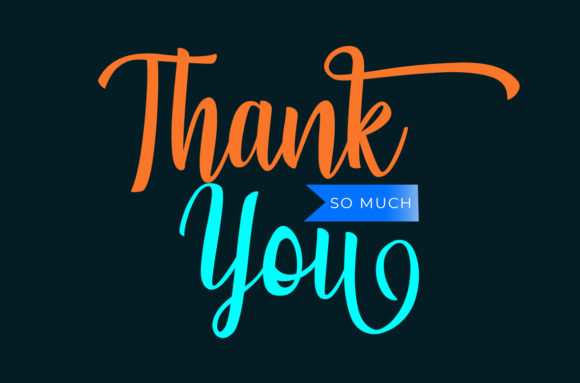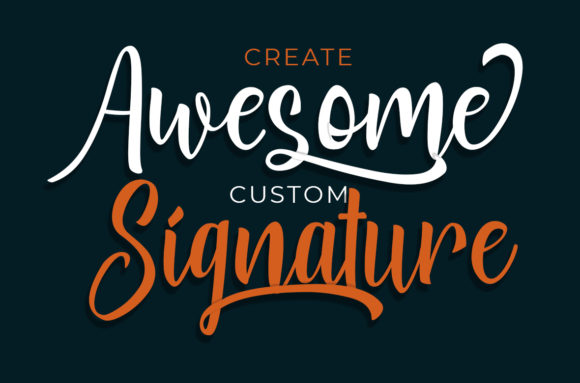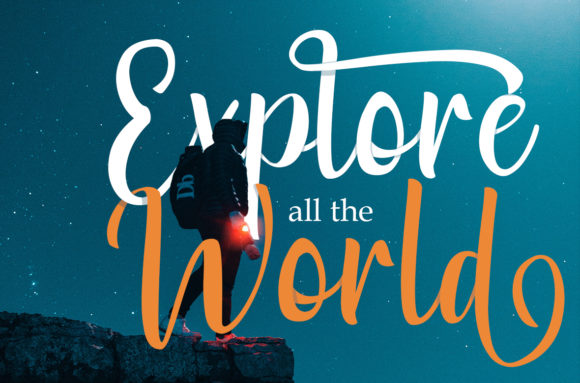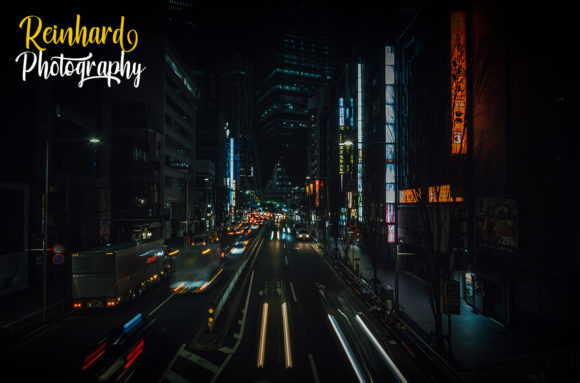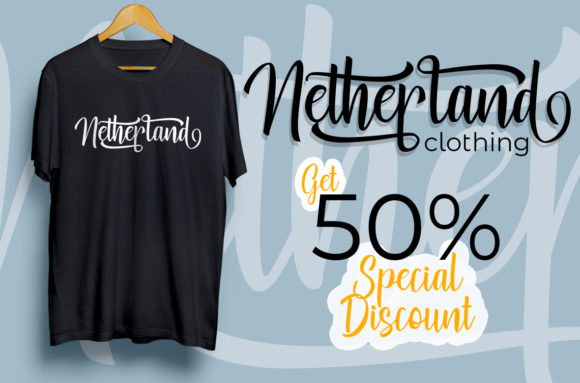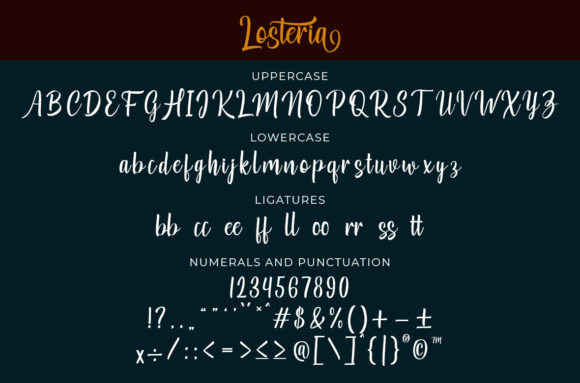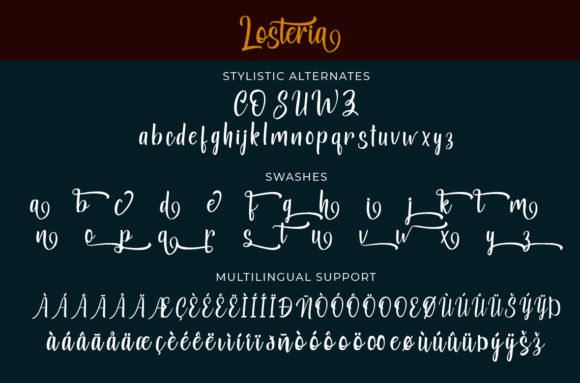
Losteria Script Font
Losteria Script is handmade brush font featuring beautiful flowing characters. It will add a romantic touch to any crafting project!